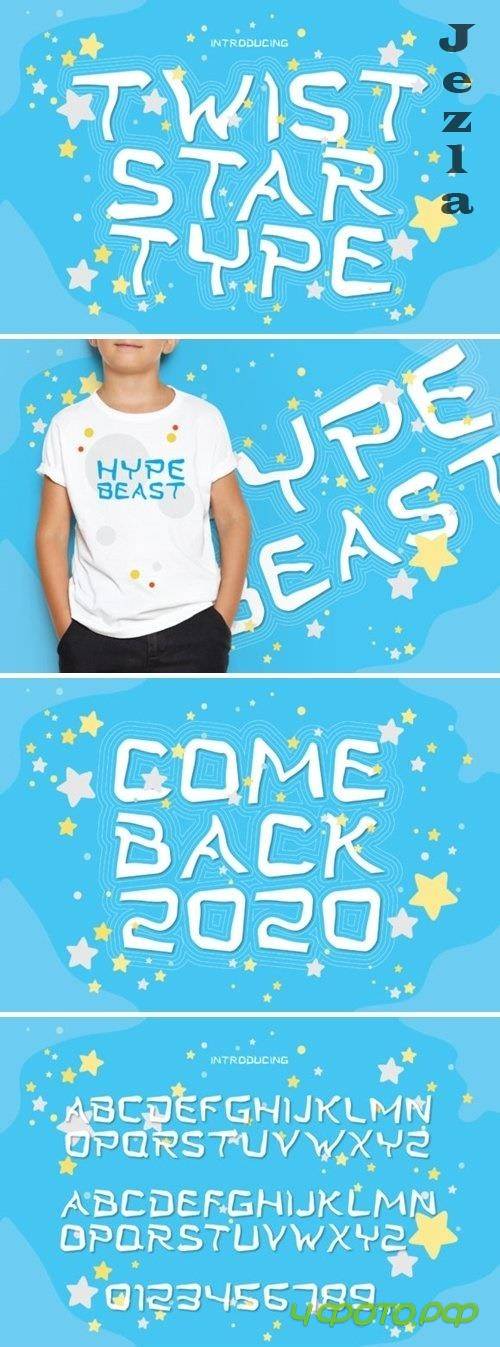
Twist Star Font
Twist Star is a casual, fun display font. Clean and a little bit quirky, this font is the perfect fit for all of your logos, branding, social media, and crafty DIY projects.